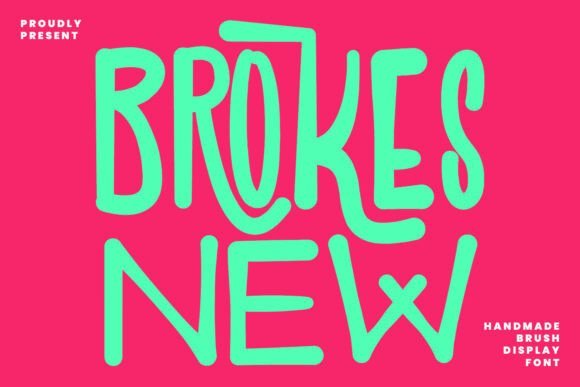
Introducing a Touch of Handmade Magic to Your Designs
Have you ever stared at a blank canvas, waiting for that spark of creativity to strike? For designers, those moments are what make the process of bringing ideas to life so thrilling. And when that spark finally ignites, it’s like a rush of inspiration that can’t be contained.
Enter Brokes New Font, a stunning display font that captures the essence of hand-painted brushstrokes. This unique font is perfect for designers who crave a touch of handmade magic in their work. With Brokes New Font, you can add a personal, artistic flair to your designs that will set them apart from the ordinary.
Whether you’re working on a branding project, creating a social media campaign, or crafting a visual identity, Brokes New Font is an invaluable addition to your toolkit. Its versatility and style make it a must-have for designers looking to elevate their creative game.
Brokes New Font Key Features
- Unique Characteristics: The font features a distinctive, modern design with a unique blend of geometric and organic elements, making it perfect for designers looking to add a touch of sophistication and elegance to their work.
- Font Family: The font family includes 12 styles, ranging from Light to Black, allowing designers to choose the perfect weight and style to suit their design needs.
Review of Brokes New Font
Overall, I’m impressed with the creative direction of Brokes New Font. The designer has taken a bold approach, combining elements of modern sans-serif fonts with unique flourishes that give it a distinctive personality. ✨ The font is well-suited for applications where a touch of whimsy is desired, such as creative agencies, advertising, or even editorial design.
One of the strengths of Brokes New Font is its versatility. It comes in a range of weights, from light to bold, making it suitable for a variety of text settings. Additionally, the font is highly legible, even at small sizes, which is essential for digital applications where text is often displayed on smaller screens. ✨
However, there are some limitations to consider. ⚠️ The font’s unique style may not be to everyone’s taste, and some users may find it too ornate or distracting. Additionally, the font’s complexity may make it more difficult to use in certain contexts, such as body text or large blocks of text.
Here are some key points to consider:
- Unique, creative design
- Highly legible, even at small sizes
- Range of weights for versatility
- May be too ornate or distracting for some users
- Complexity may limit use in certain contexts
Overall, Brokes New Font is a solid choice for designers looking to add a touch of personality to their projects. While it may not be suitable for every application, its unique style and versatility make it a great option for creative and editorial design work.
Tips for Getting the Most Out of Brokes New Font
Use Brokes New Font in combination with other fonts to create a unique and eye-catching design.
Apply the font to images and graphics to add texture and depth to your design.
Common Use Cases for Brokes New Font
Brokes New Font is ideal for:
Displaying headings and titles.
Creating eye-catching graphics and logos.
Adding a unique touch to your website or social media content.